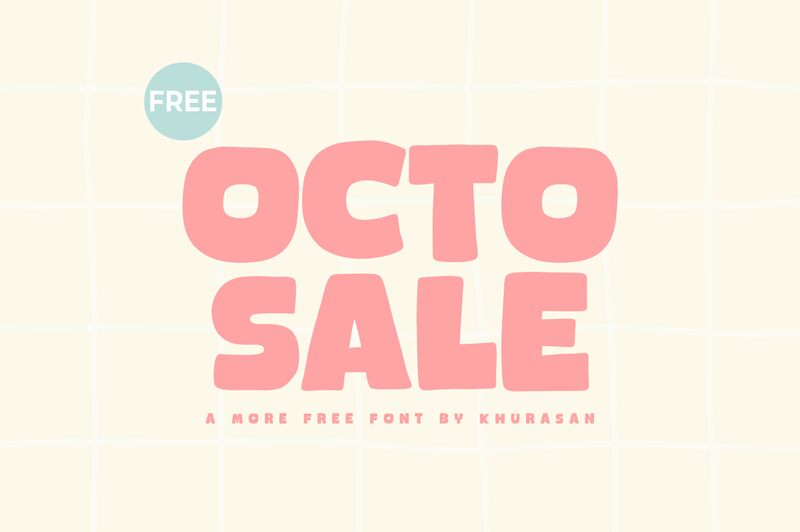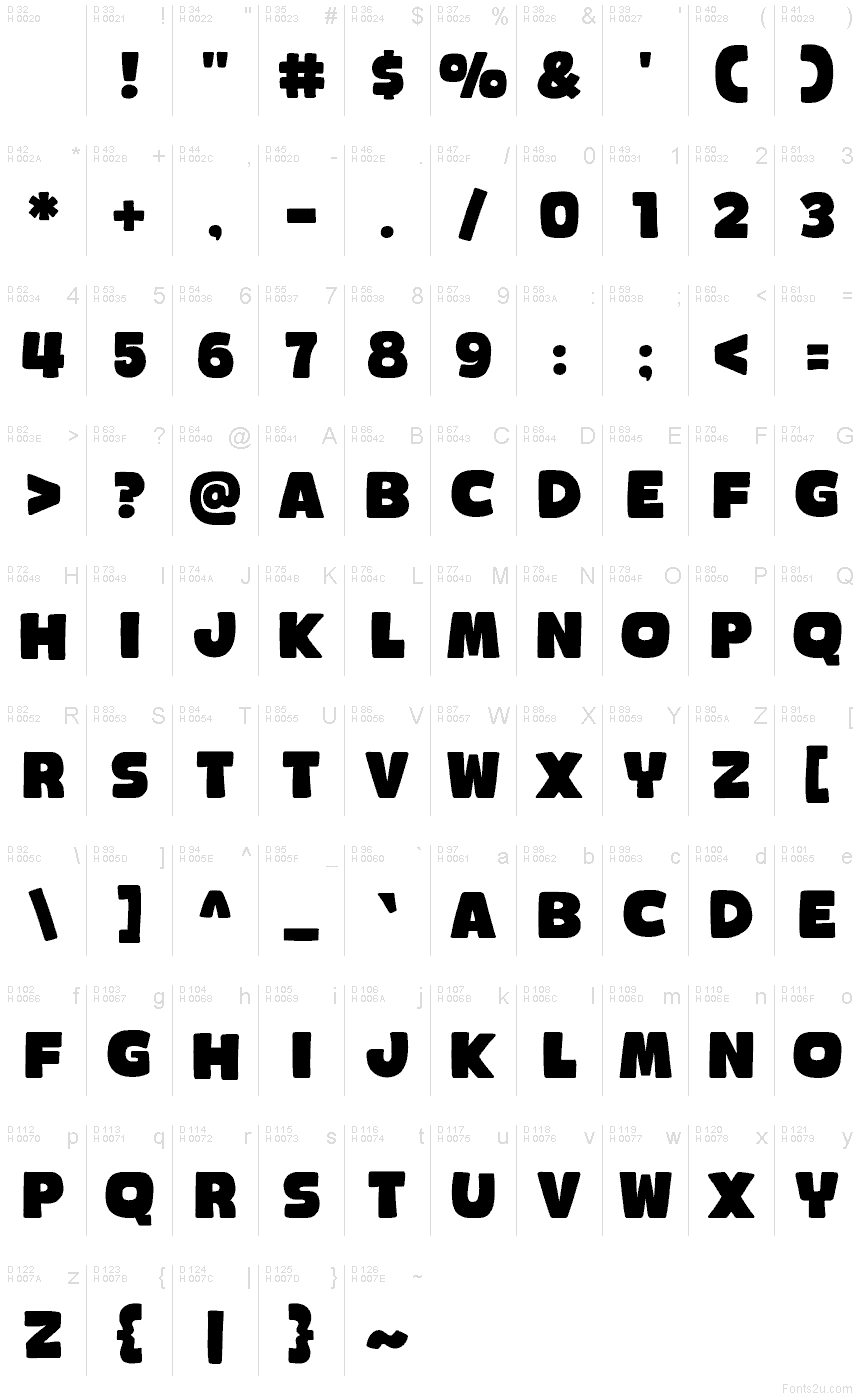
Octosale
Octosale font by Khurasan is a free cartoon display typeface. Its chunky, squishy forms and rounded corners read like bold ink stamps—big, bubbly, and impossible to miss. Letters sit with a gentle wobble and generous weight, so words look friendly while still shouting the message. It’s that rare headline face that feels playful without getting messy, great when you need fun that still sells.
Using Octosale, headlines snap on storefront promos, kids’ packaging, price tags, snack branding, event posters, and social banners. The broad shapes pack in color and hold up at a glance, even from a distance. Pair this free font with a simple geometric sans for details, or tighten tracking slightly at large sizes to keep the bubble shapes snug.